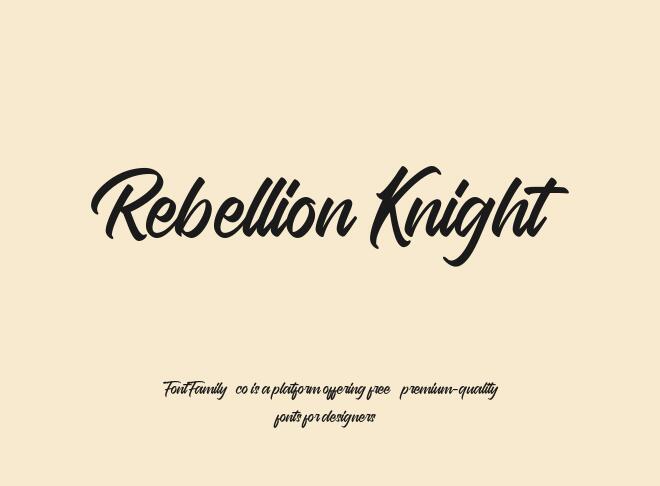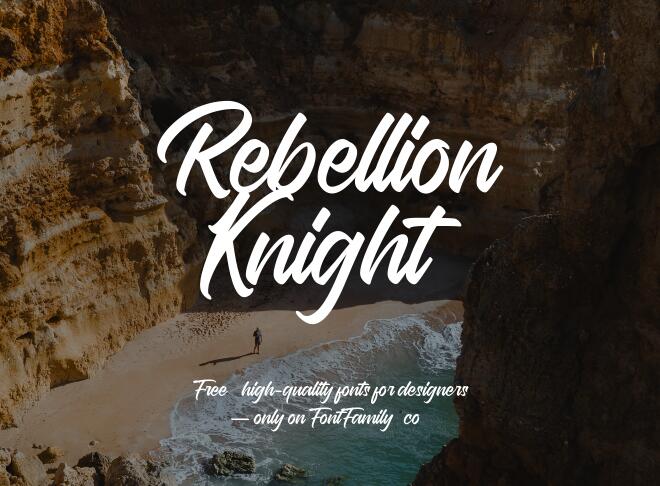
Rebellion Knight Font
Introducing Rebellion Knight Font, a bold, retro-inspired script font that exudes a sense of nostalgia and adventure. Its unique character strokes and tight kerning make it a perfect choice for eye-catching headlines, logos, and posters. Rebellion Knight Font is reminiscent of classic advertising scripts, yet it holds its own with a modern, daring twist. This font is an excellent choice for designers who want to inject a retro vibe into their work, without sacrificing readability. Its bold, script style is distinctive and attention-grabbing, making it ideal for branding projects and creative designs. Rebellion Knight Font is free for personal use and is a must-have addition to any designer's toolkit.